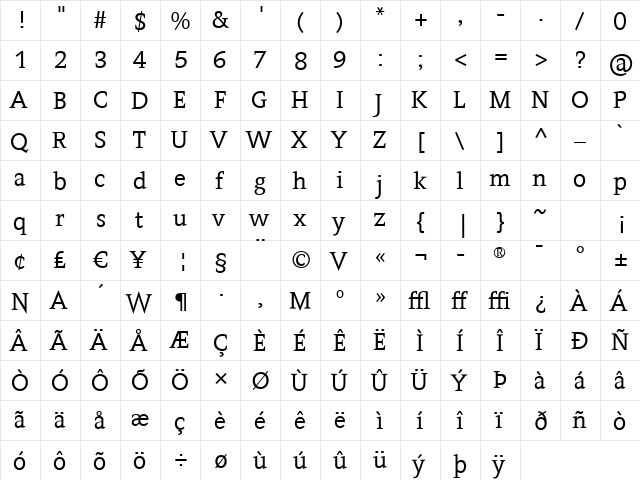
Contra Regular
| Foundry | Fredrick Nader |
| Designer | Fredrick Nader |
Design Context for Contra Typeface
Contra is a composed and adaptable typeface that performs quietly and consistently across a wide range of design contexts.